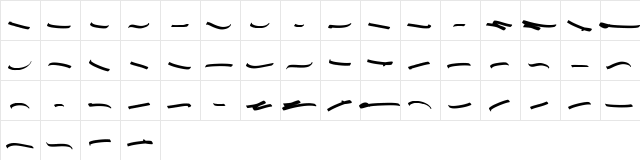
STRIKEOUT SWASH Regular
Design Context for STRIKEOUT SWASH Typeface
STRIKEOUT SWASH flows with the natural rhythm of handwritten lettering, making it ideal for designs that call for warmth and personal expression.
Font Pairing: Combine STRIKEOUT SWASH with a simple geometric sans for maximum contrast — the tension between flowing curves and clean structure is a classic typographic pairing.
Pro Tip: Pair STRIKEOUT SWASH with a clean sans-serif for supporting text. The contrast between fluid script and geometric structure creates an elegant typographic hierarchy.